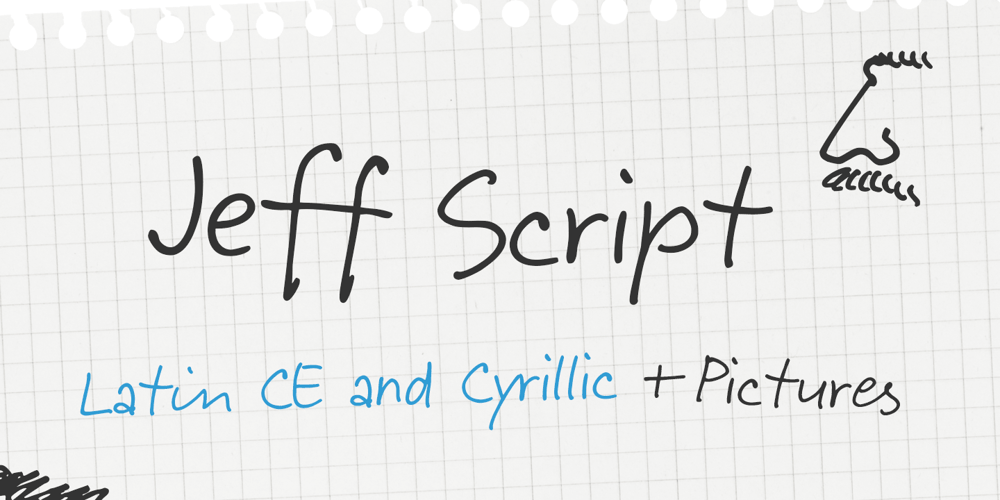
Jeff Script
Jeff Script font
Jeff Script Font Family was designed by Gennady Fridman and published by ParaType. Jeff Script contains 2 styles and family package options. Jeff Script is based on original handwriting of renowned Russian type designer Vladimir Yefimov. Vladimir designed a plenty of Cyrillic fonts that became the classical ones between contemporary Cyrillic type designs. Being extreme busy with type projects, he never had time to digitize his own script and this lacuna was filled by Gennady Fridman. The font was developed to the 60th anniversary of Maestro and released by ParaType in 2009. Jeff Pictures is based on pictures from Vladimir Yefimov’s sketch-books. It seems quite spontaneous, because the face was collected from small sketches, artistic works or marginal notes. It gives full scope for imagination in display typography and may be even used for comic books. The typeface was digitized by Anna Shmeleva and released by ParaType in 2015 as a supplement for Jeff Script.